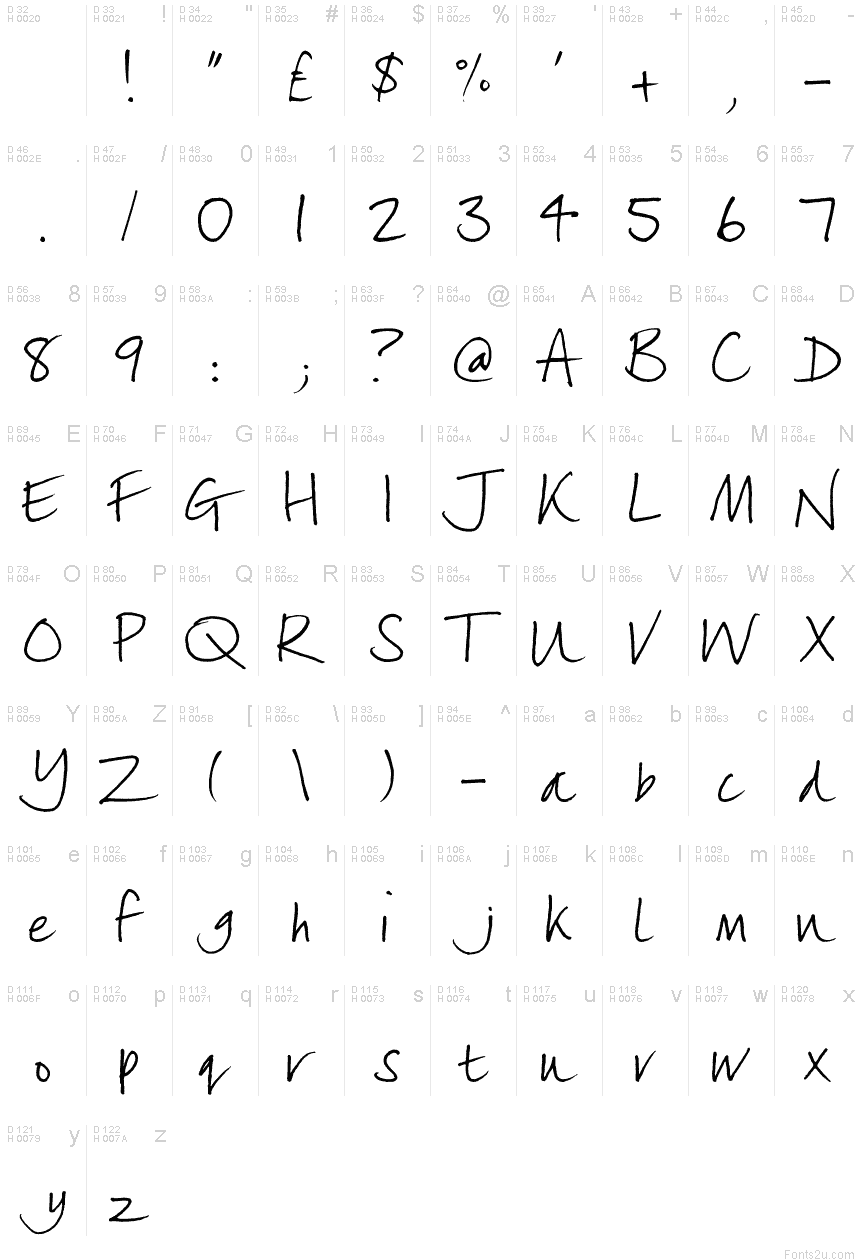
lizzielongstocking
Lizzie Longstocking is a free handwritten font shaped by loose, upright strokes and a slightly dry marker texture that keeps the lettering informal rather than polished. The repeated long stems and flat, quick turns give it the look of notes jotted in a hurry, with enough consistency to feel like a real design instead of a one-off scribble.
That makes it a natural choice for diary-style titles, scrapbook labels, zine covers, classroom materials, and casual packaging where a neat script would feel too mannered. Short headings and callouts especially benefit from its lanky rhythm, which gives each word a breezy, personal push.